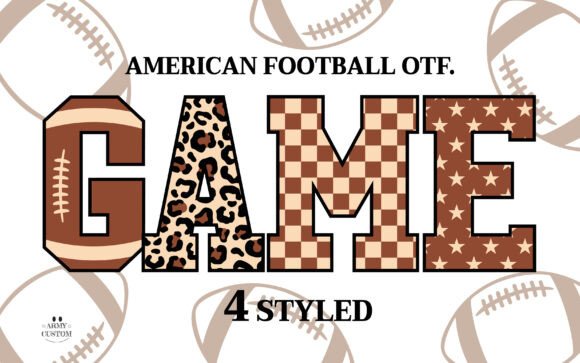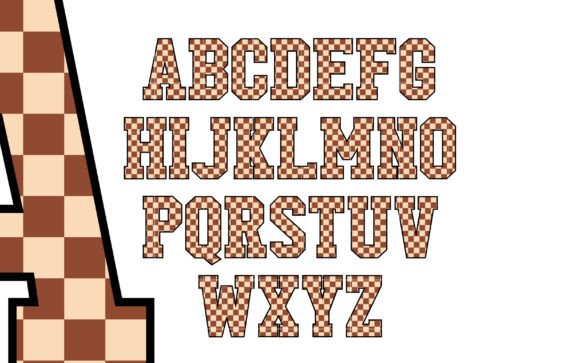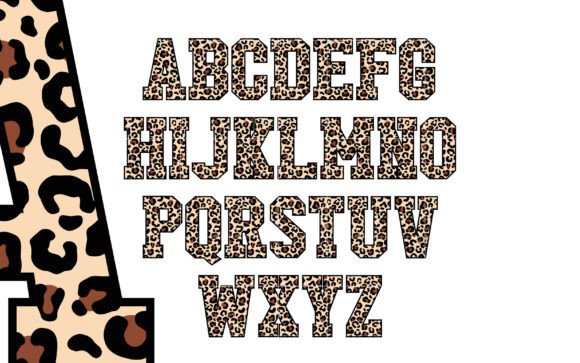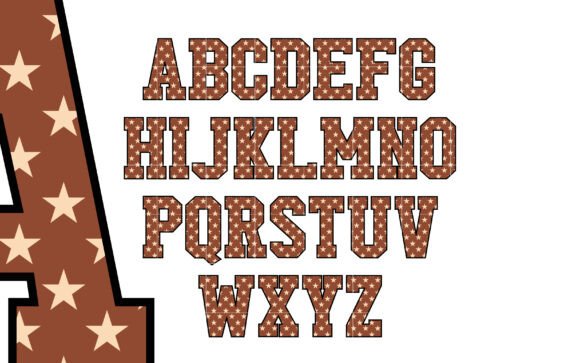
American Football Font
Step into the thrilling arena of gridiron through the power of typography with the American Football Bundle Font. This diverse font collection encapsulates the high-energy, power-packed spirit of American football, offering a unique blend of dynamic lettering that truly capture the essence of the sport. Score a typographic touchdown with every use of the American Football Bundle Font.